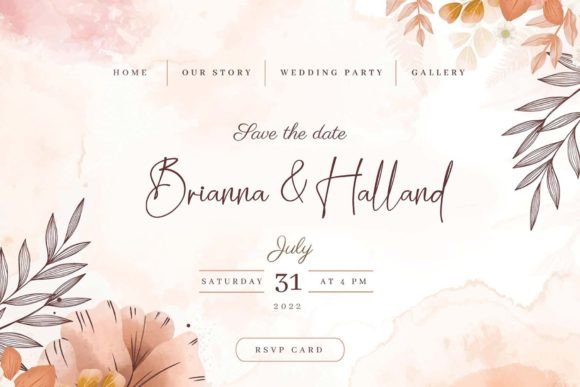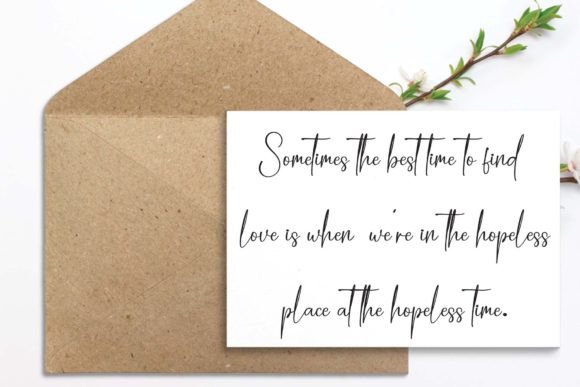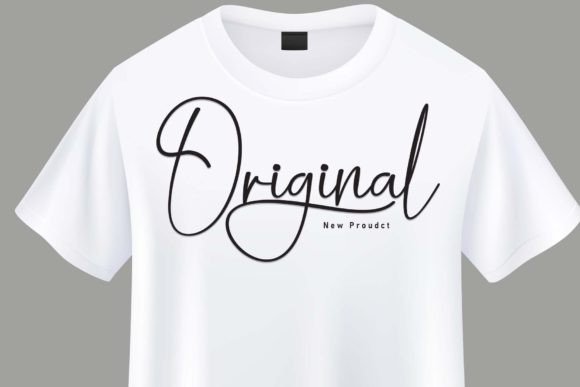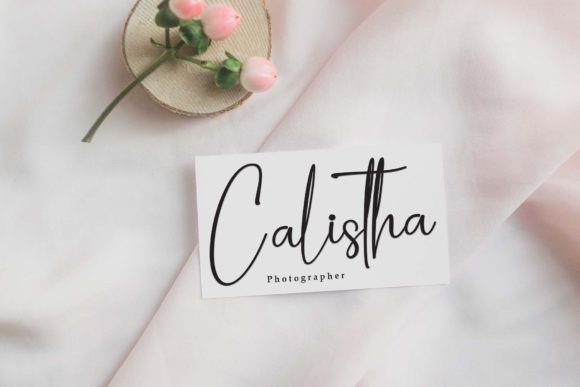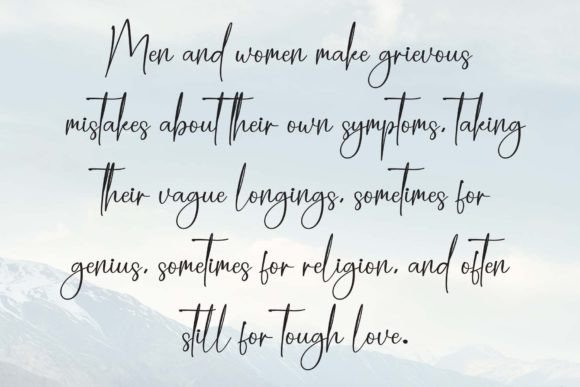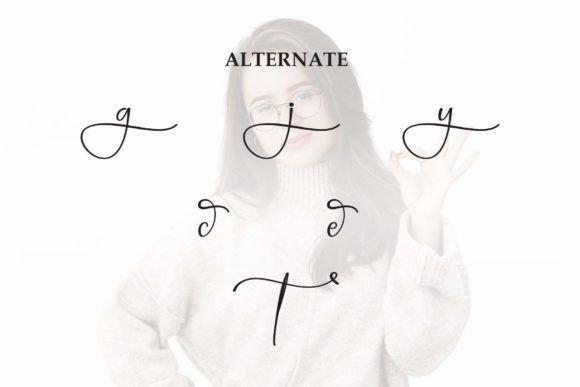
Discover the Magic of Beautyface Font
As designers, we’ve all been there – staring at a blank canvas, waiting for inspiration to strike. The blank page can be intimidating, but what if it could spark a wave of creativity instead? For me, it’s the moment when the perfect font comes along, and everything falls into place. That’s exactly what happens when you fall in love with the Beautyface Font.
With its exquisite handwritten style, Beautyface Font masterfully combines classic calligraphic influences with a fresh, contemporary feel. Whether you’re working on a branding project, a wedding invitation, or a social media campaign, this font is sure to elevate your designs to the next level. As a valuable addition to any designer’s toolkit, Beautyface Font offers a unique blend of sophistication and playfulness that’s hard to resist.
Beautyface Font Key Features
- Font Family: Beautyface
- Size: Available in 6 weights, from Light to Black, to cater to various design requirements.
- Unique Characteristics: Features a modern, elegant design with subtle curves and refined lines, making it ideal for fashion, beauty, and luxury branding.
Beautyface Font Review
Overall, I’d say Beautyface is a decent font option, but it has its pros and cons. Let’s start with the good stuff!
- ✨ It’s playful and modern, perfect for a youthful vibe. The curves and rounded edges give it a friendly feel.
- ✨ The font is highly legible, making it suitable for body text as well as headings.
- ✨ It’s available in a range of weights, from light to bold, allowing for a good deal of flexibility in design.
Now, let’s talk about the limitations:
- ⚠️ The font may not be suitable for formal or professional designs, as it’s a bit too playful and informal.
- ⚠️ The italic and bold versions can look a bit inconsistent, which may be jarring in certain designs.
- ⚠️ The font family is relatively small, so it may not be as versatile as some other options.
Overall, Beautyface is a solid choice for designs that need a youthful and modern feel. While it’s not perfect, it’s a good option for those who want a fun and playful font that’s still easy to read.
Beautyface is particularly effective for creating eye-catching headings and titles in Canva.
Beautyface is a great choice for creating elegant and sophisticated designs in Adobe Creative Cloud applications.
Beautyface is particularly effective for creating professional-looking presentations and documents in PowerPoint and Word.
The Beautyface Font is ideal for:
- Creating eye-catching headings and titles
- Designing elegant and sophisticated graphics
- Adding a touch of luxury and sophistication to presentations and documents
Q: Is Beautyface available in different font weights?
Yes, Beautyface is available in multiple font weights, including light, regular, medium, bold, and extra bold. This allows designers to achieve a range of visual effects and emphasis in their designs.
Q: What is the recommended line height for Beautyface?
The recommended line height for Beautyface is 1.2 to 1.5 times the font size. This ensures that the text is easy to read and visually appealing, even at smaller font sizes.